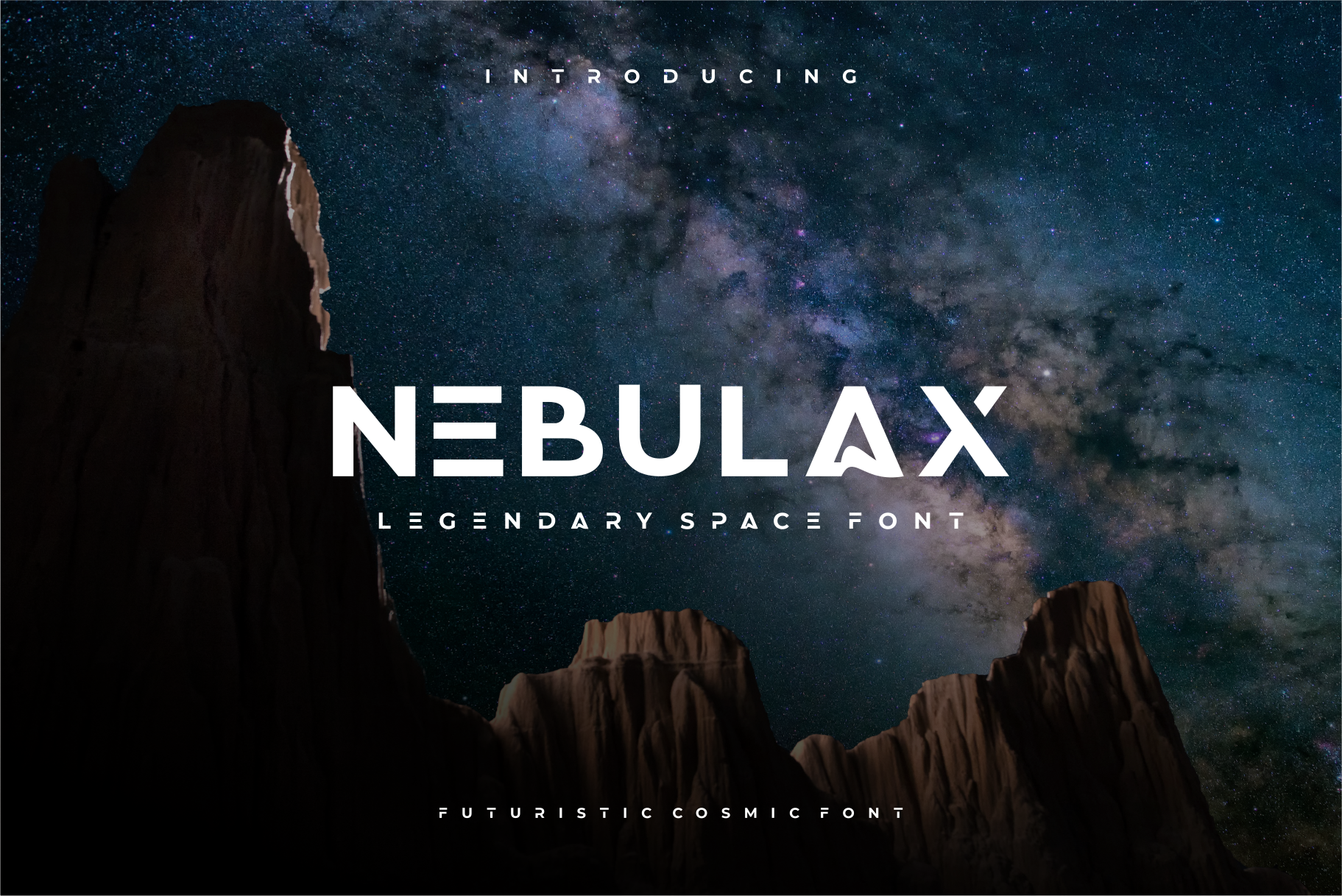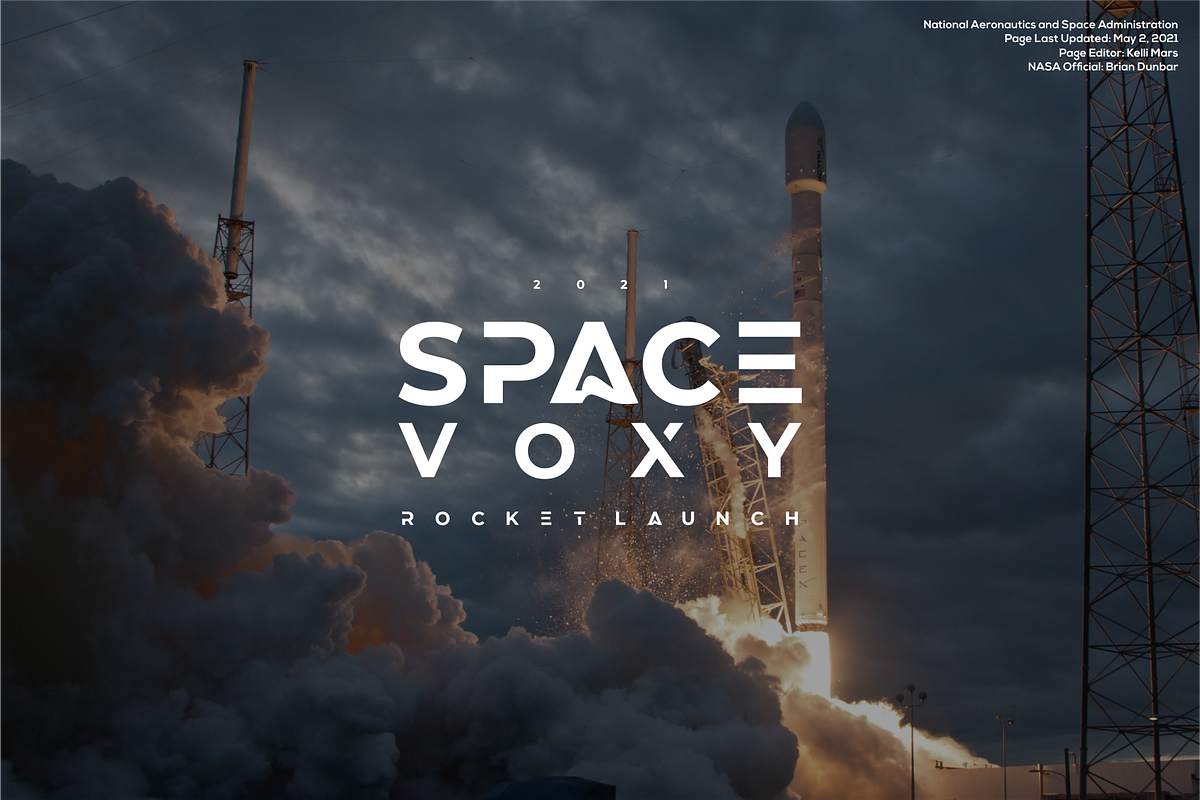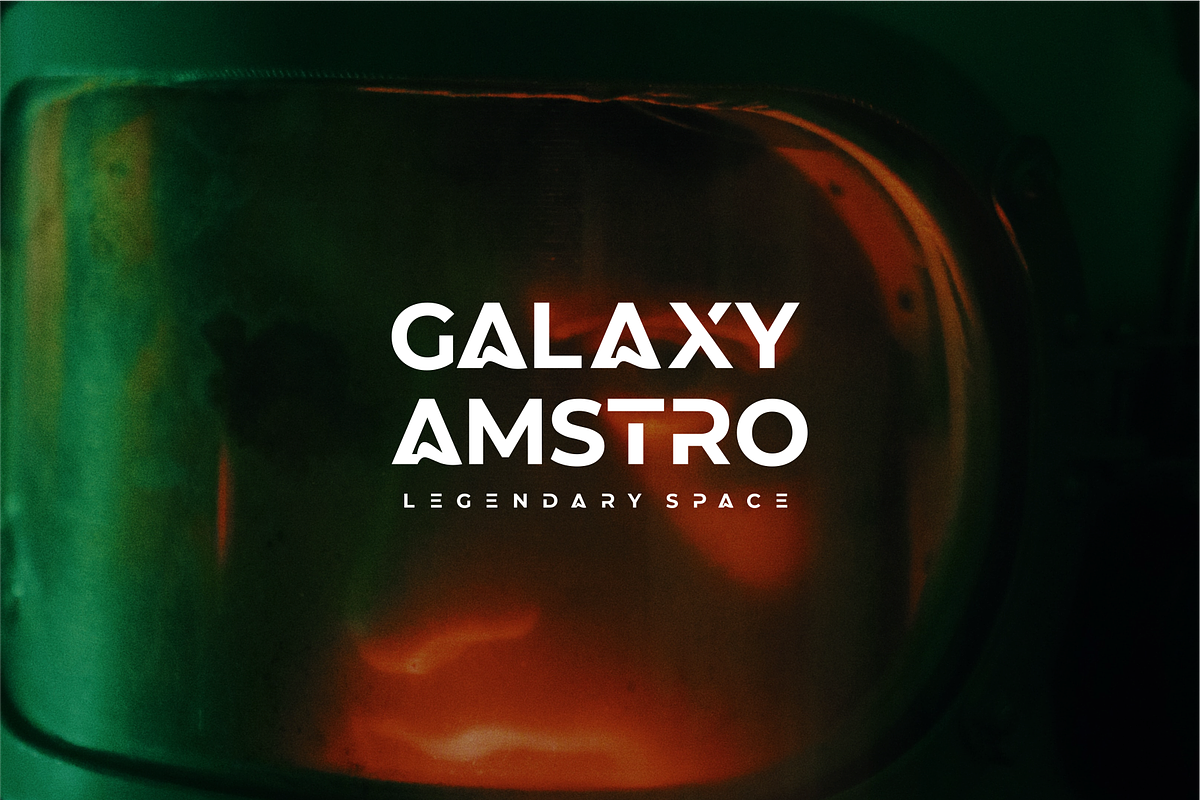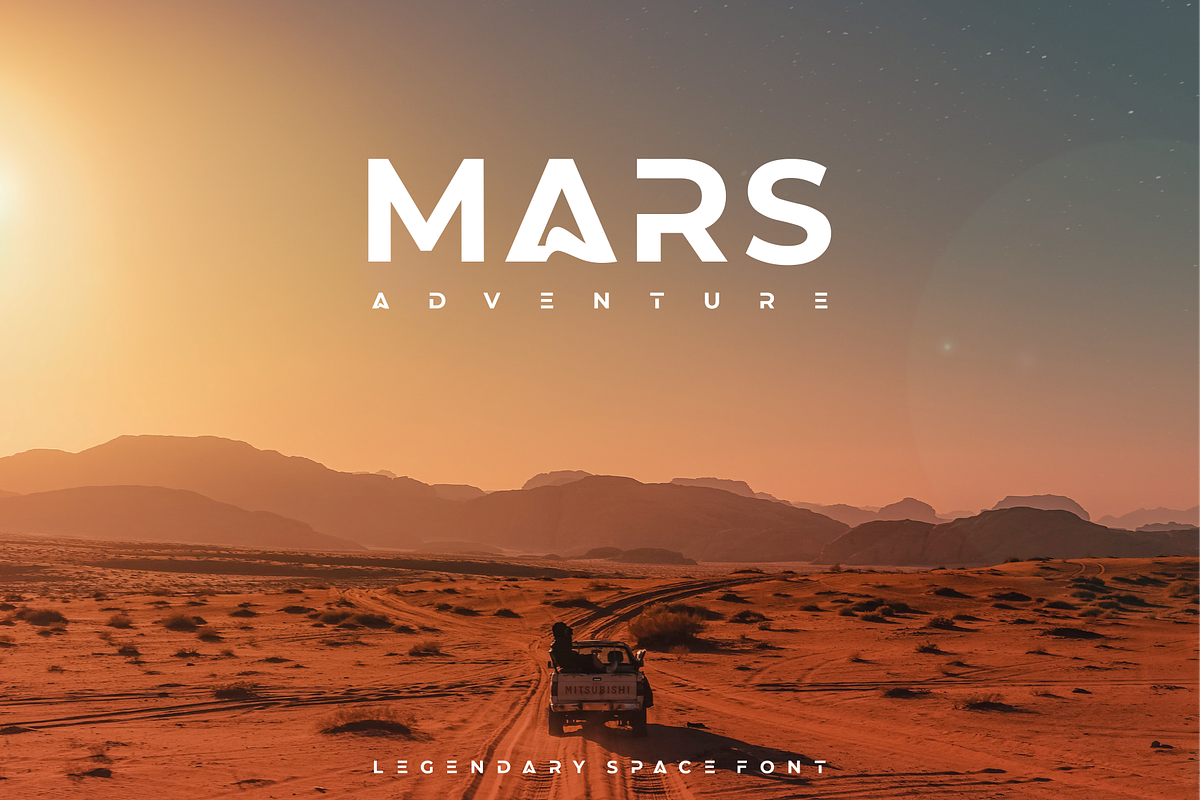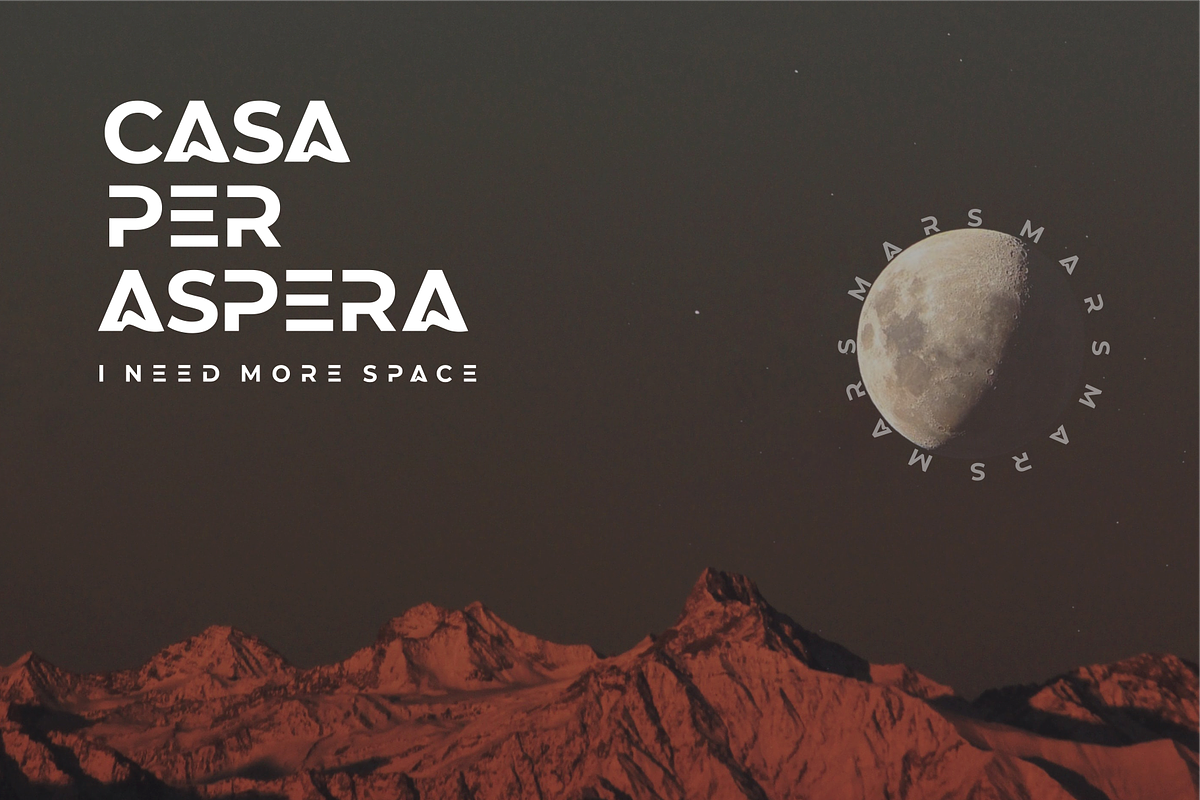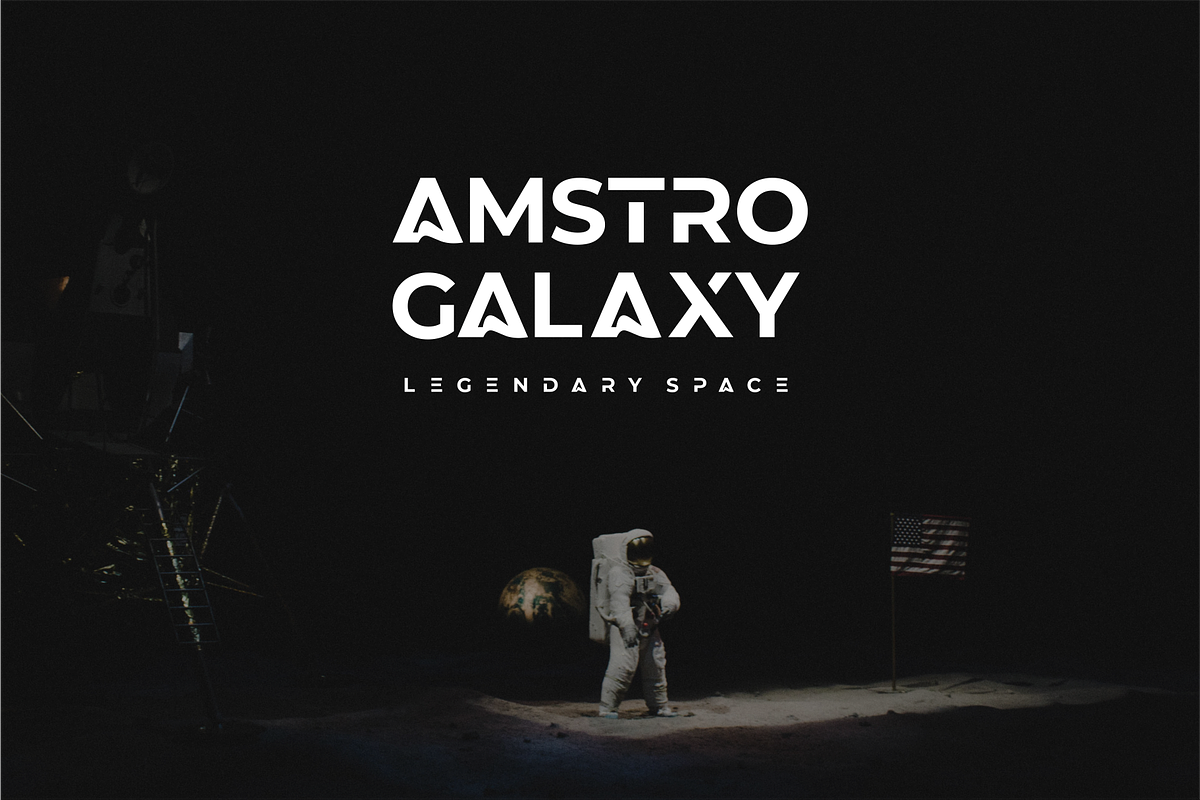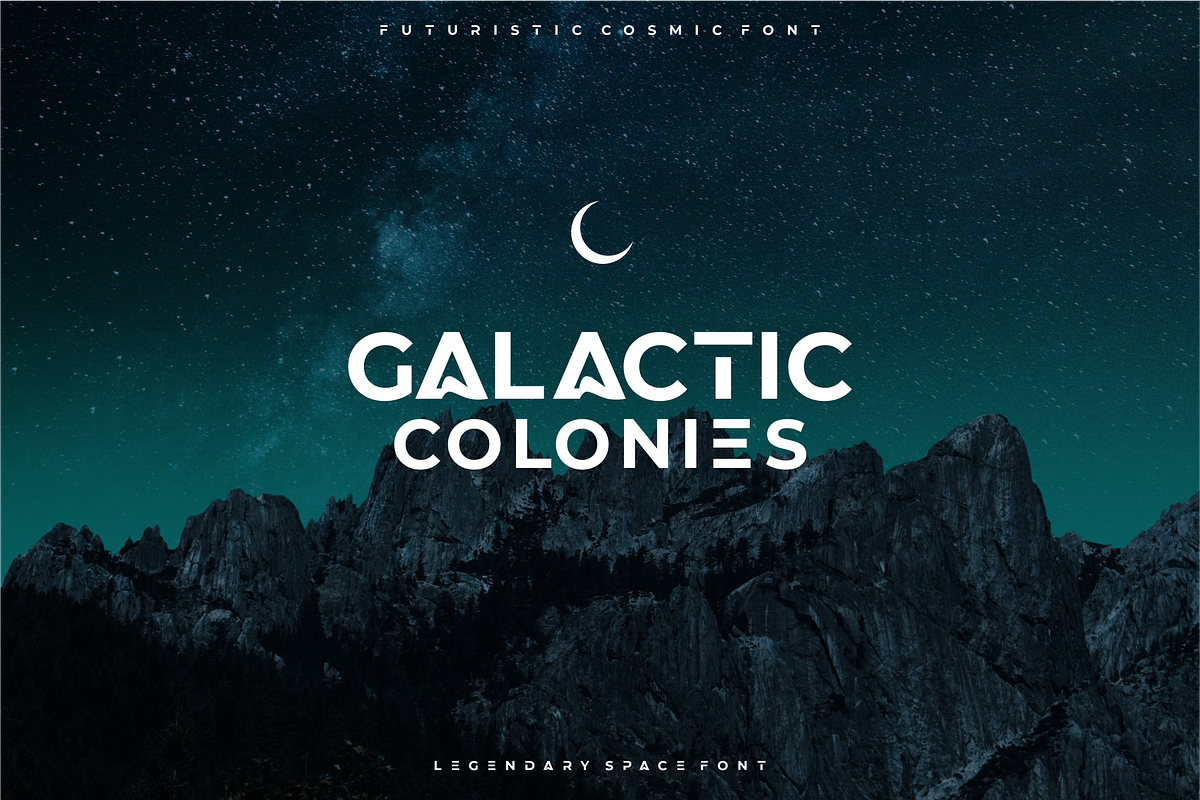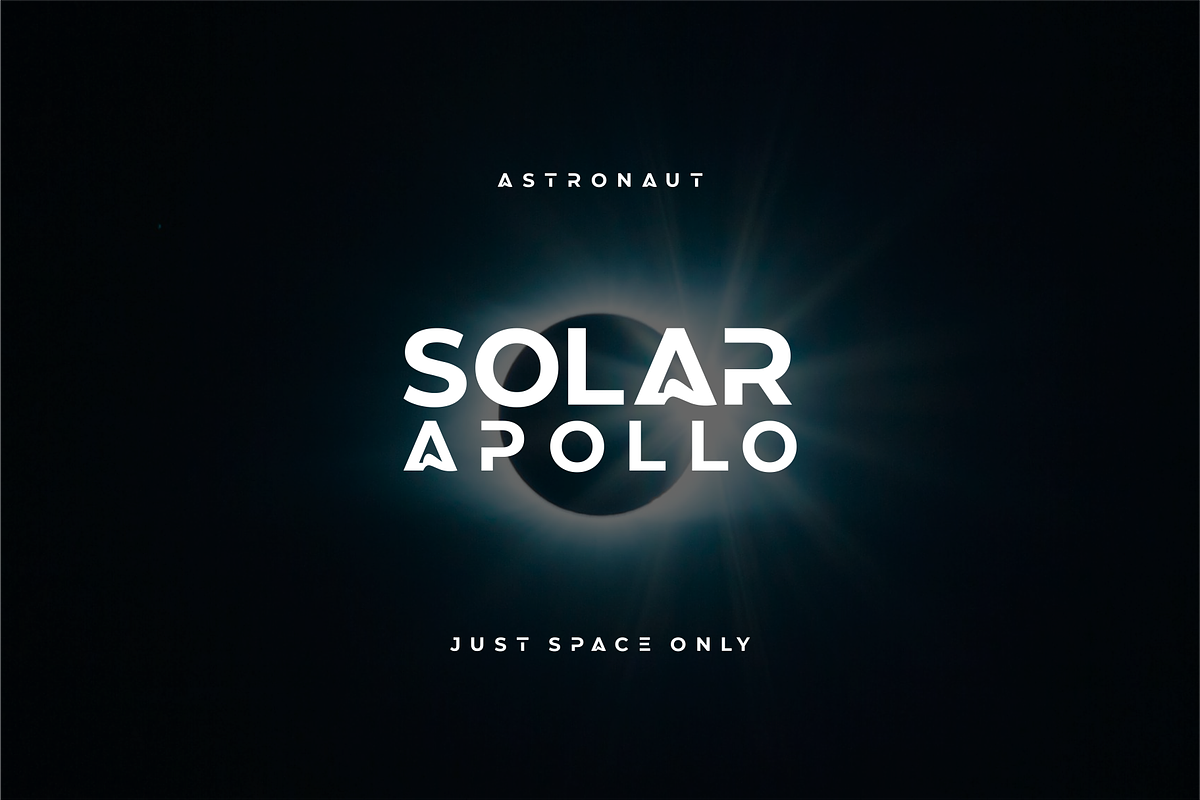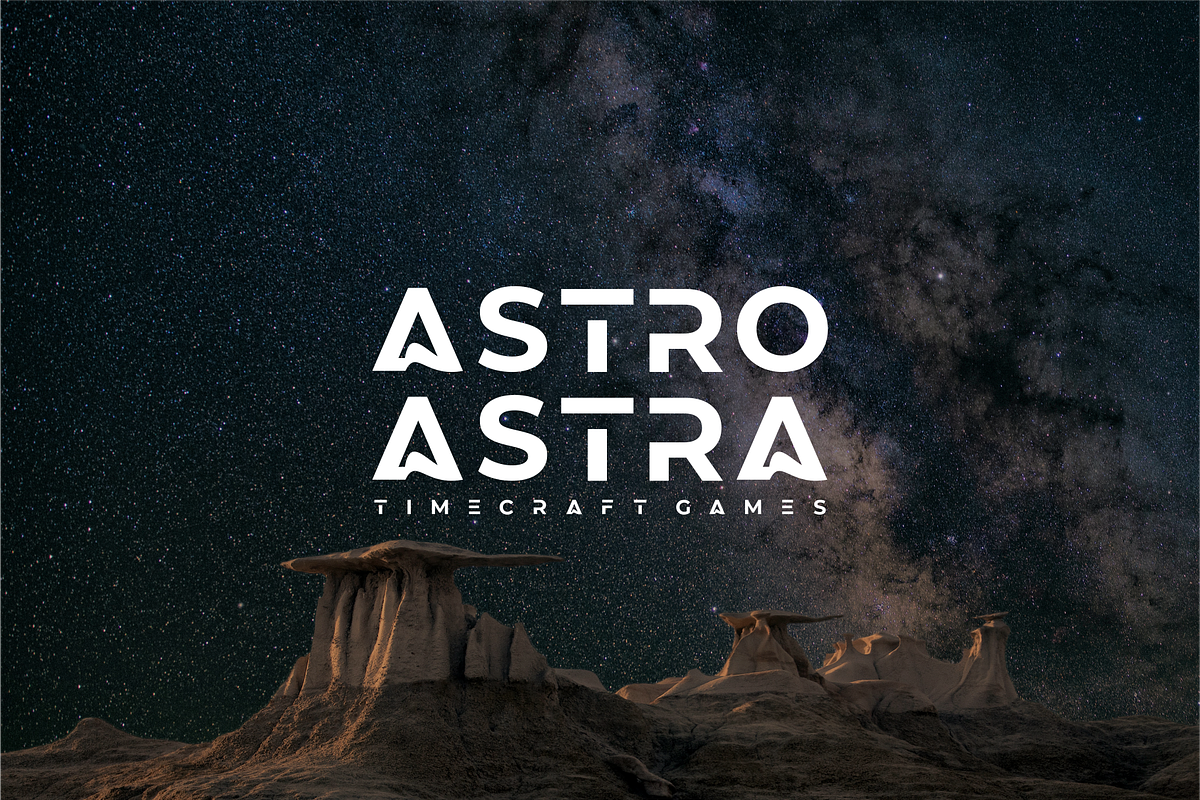
NEBULAX - futuristic modern font
NEBULAX - futuristic modern font a font with a futuristic edge, geometric corners, perfect for many project: fashion, magazines, logo, branding, photography, quotes, blog header, poster, advertisements, postcard, book, websites, etc.